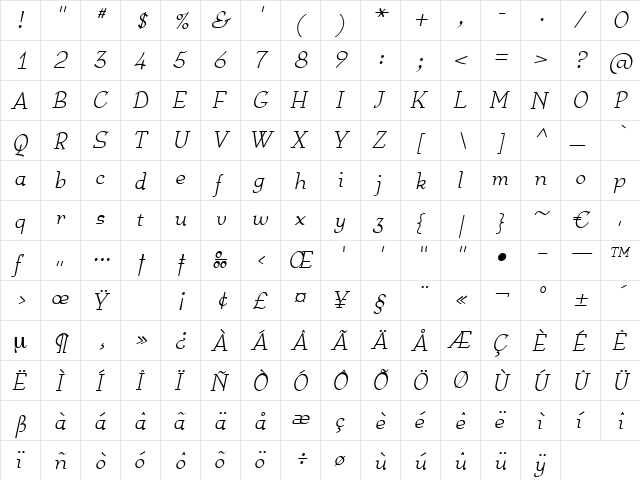
NympheItalic Regular
Design Context for NympheItalic Typeface
NympheItalic is a composed and adaptable typeface that performs quietly and consistently across a wide range of design contexts. The dynamic lean of this cut emphasises speed and emphasis in any layout.
Pro Tip: Try NympheItalic for annotation and caption copy alongside an upright companion — the contrast in angle creates a dynamic but ordered typographic system.